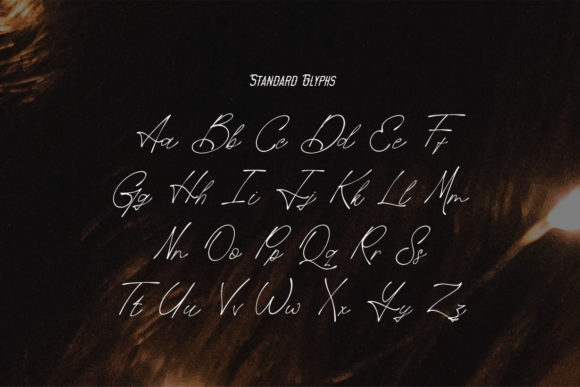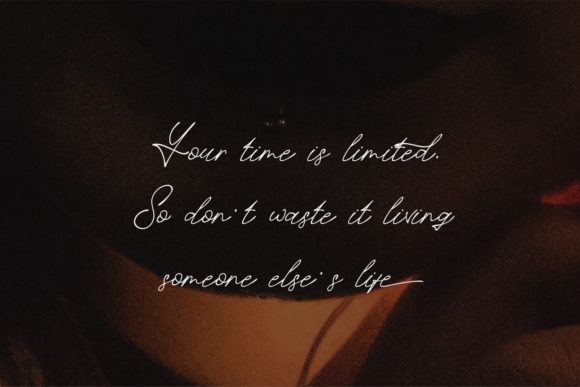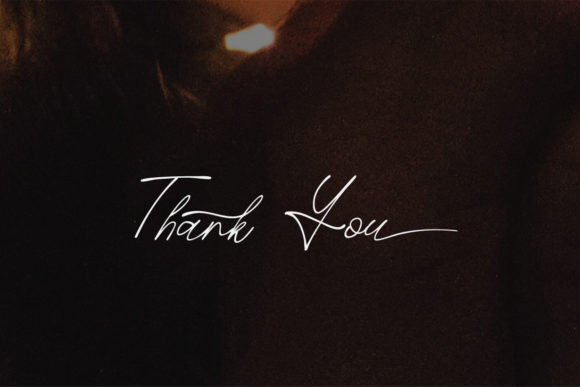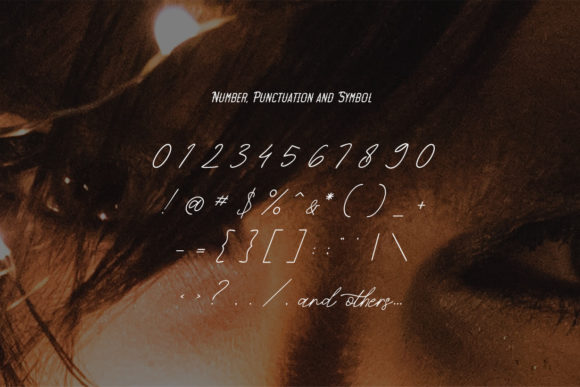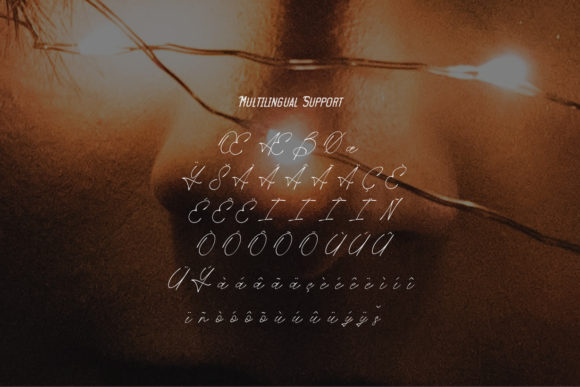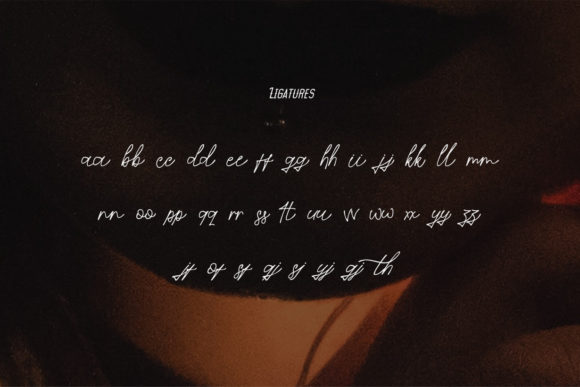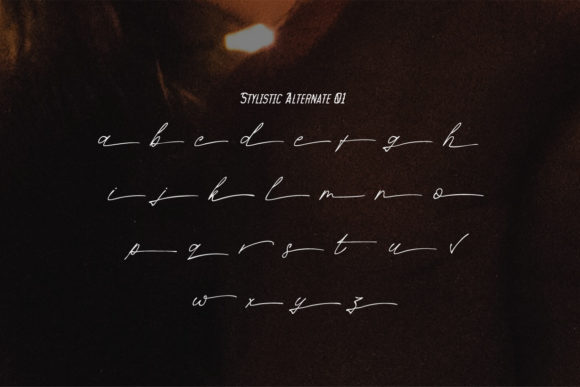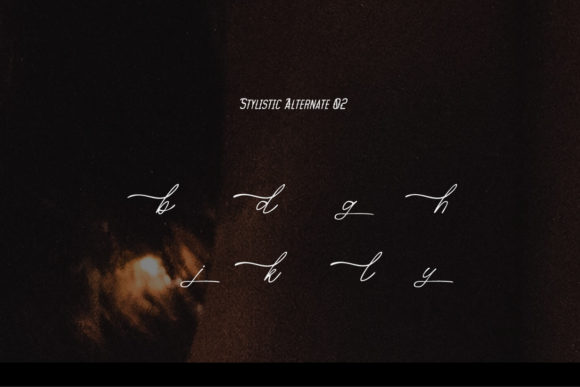
Rosanthie Font
About Rosanthie Font
“Rosanthie” is a graceful and elegant handwritten font, characterized by its delicate and flowing style. With its well-balanced characters and timeless charm, this font is a perfect choice for a variety of creative projects. Here are some design ideas to make the most of the “Rosanthie” font and create captivating and lively designs:
1. Wedding Invitations: Design romantic and sophisticated wedding invitations using the “Rosanthie” font to create an enchanting and personalized touch.
2. Greeting Cards: Create heartfelt and beautiful greeting cards for special occasions, holidays, and events, showcasing the font’s delicate and elegant script.
3. Branding and Logos: Use the font to design elegant logos and brand identities for businesses seeking a refined and luxurious look.
4. Social Media Graphics: Enhance your social media posts with the “Rosanthie” font to create visually appealing and eye-catching content.
5. Stationery and Letterhead: Design elegant stationery and letterhead for both personal and professional use with the font’s graceful and flowing characters.
6. Quotes and Typography Art: Create captivating typography art and posters featuring inspiring quotes and phrases using the beautiful “Rosanthie” font.
7. Product Packaging: Apply the font to design labels, tags, and packaging for products that require an elegant and sophisticated appearance.
8. Book Covers: Use the font for book titles and covers to convey a sense of refinement and beauty.
9. Website Headings: Incorporate the “Rosanthie” font in website headings and banners to create a delicate and elegant design.
10. Event Signage: Design event signage and banners with the font to add a touch of elegance and charm to any occasion.
11. Magazine Covers: Apply the font to magazine covers for a timeless and visually captivating look.
12. Personal Branding: Use the “Rosanthie” font as part of your personal branding on business cards, email signatures, and personal websites.
The “Rosanthie” font’s delicate and flowing style, along with its well-balanced characters, allows for a wide range of design possibilities. Its elegance and timeless appeal will bring your creative ideas to life, adding sophistication and charm to all your projects. Embrace the beauty and versatility of “Rosanthie,” and use it to create captivating and lively designs that leave a lasting impression on viewers.